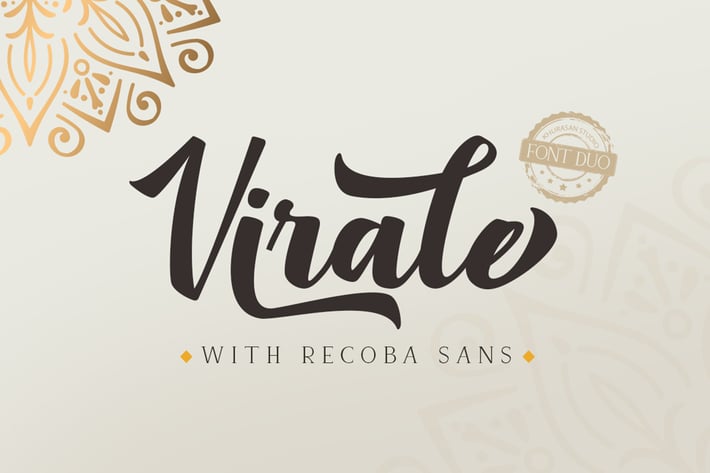
Virale Recoba Font Duo
khurasan
The Virale Script Font is a fun bold script font, fresh & modern style with Recoba Sans Serif style & modern font. You can combine Virale & Recoba to get amazing results. Virale & Recoba Font suitable for logo, branding, greeting card, poster and any design that you create.
Alternate Stylistic Character